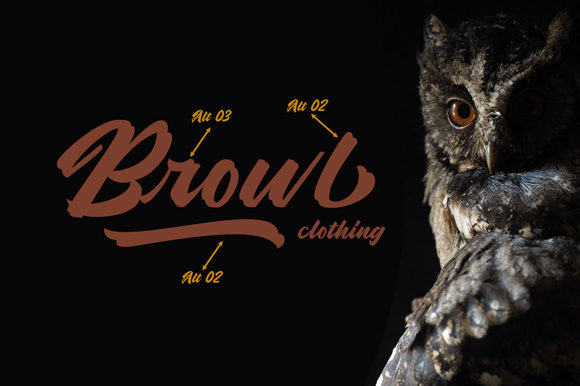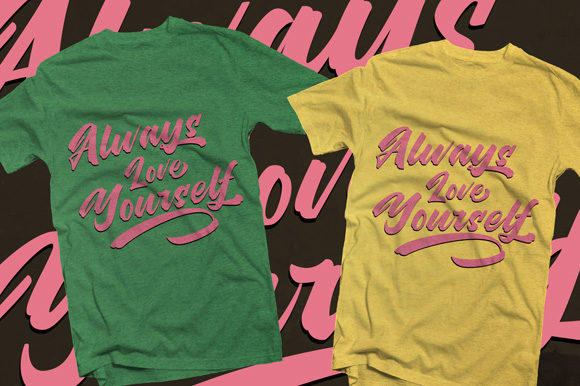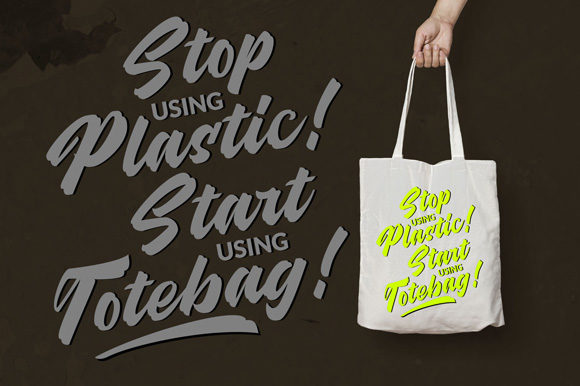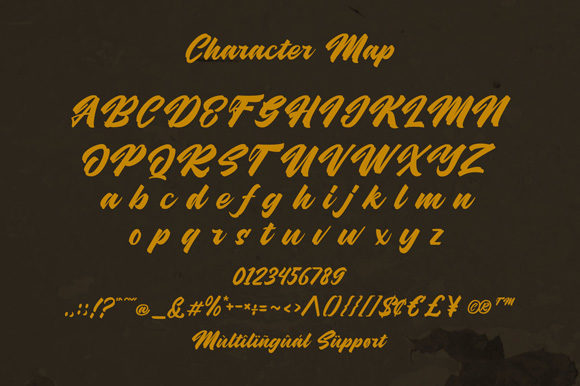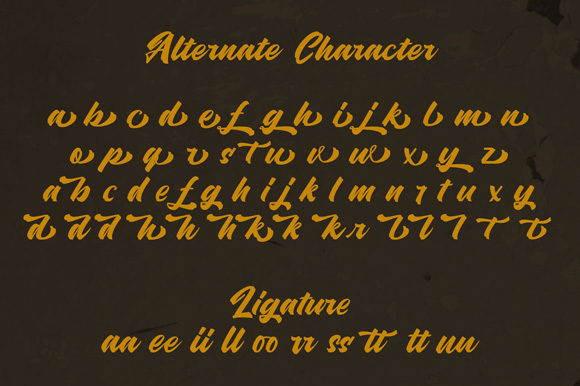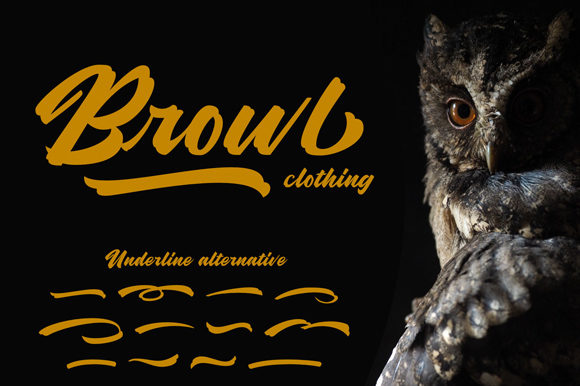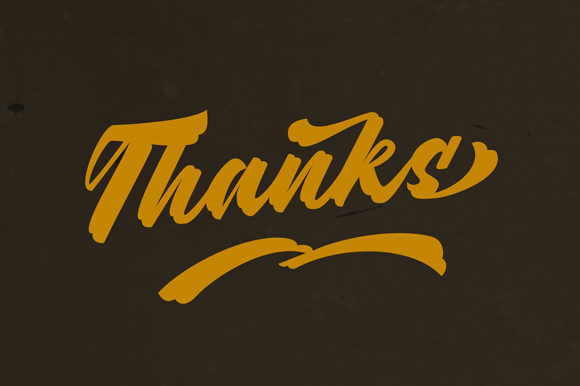
Hubolt Font
About Hubolt Font
Hubolt is a beautiful, fun script font, created by using a brush pen. This font is the perfect fit for all of your logos, branding, social media, and crafty DIY projects.